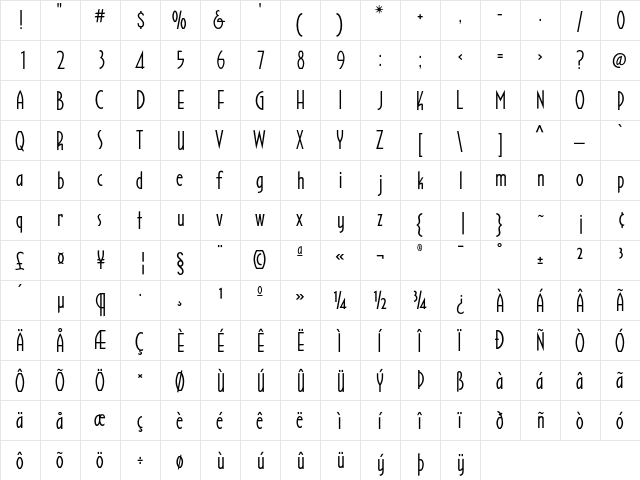
AviatorSG Light
Design Context for AviatorSG Typeface
AviatorSG offers clean, dependable letterforms without strong stylistic allegiance, making it a practical choice for designers who need flexibility. The delicate stroke weight brings airiness and refinement to layouts.